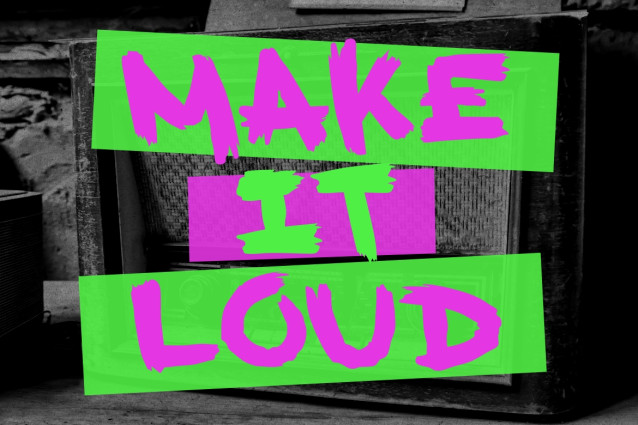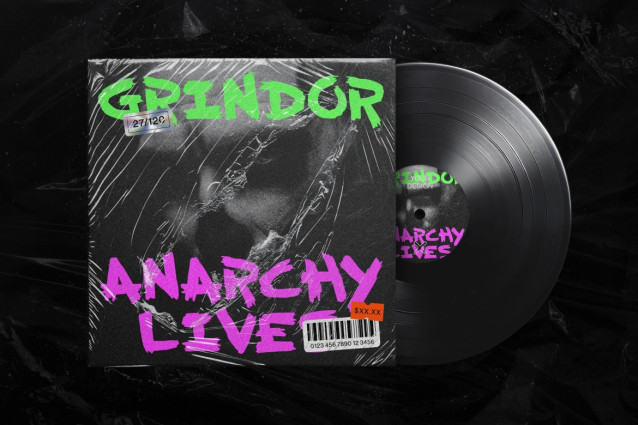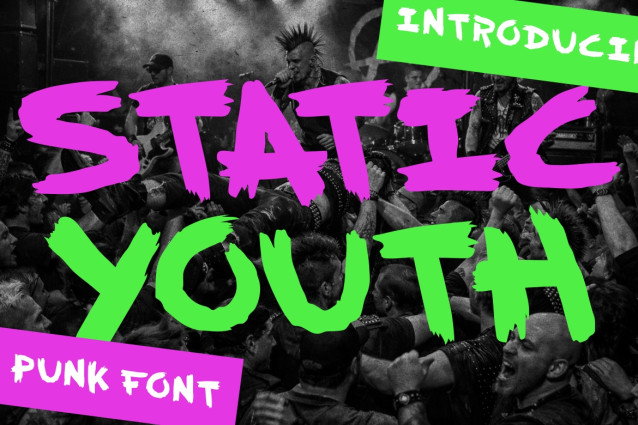
Static Youth Punk Font
Static Youth Punk Font hits hard with rough brush strokes and raw underground attitude. The letterforms use bold weight, uneven edges, torn terminals, and hand-painted rhythm. Each character feels fast, loud, and aggressive, with textured cuts that mimic dry brush pressure. Stroke widths shift naturally, giving words movement and tension. The style blends punk, street, grunge, rebellious, and DIY energy.
Static Youth Punk Font is ideal for branding that needs impact and anti-polished character. It fits band logos, skate shops, record labels, tattoo studios, street food brands, gaming teams, bar promotions, and urban product packaging. Use it for logos, headlines, titles, stickers, banners, and campaigns that need instant attention.
This display font performs strongly in concert flyers, album covers, event posters, magazine titles, book covers, and social media graphics. Uppercase letters create a bold wall of sound, while lowercase keeps layouts more casual and handmade. Irregular spacing adds authentic street flavor without losing legibility in large sizes. The brush texture gives every phrase a charged and expressive silhouette. This style matches themes such as underground culture, youth rebellion, extreme sports, nightlife scenes, garage events, indie launches, and raw creative campaigns. It also suits café promos, beverage labels, movie titles, greeting cards, packaging, and bold quote designs. Designers can build fearless visuals that feel energetic, noisy, and unforgettable.